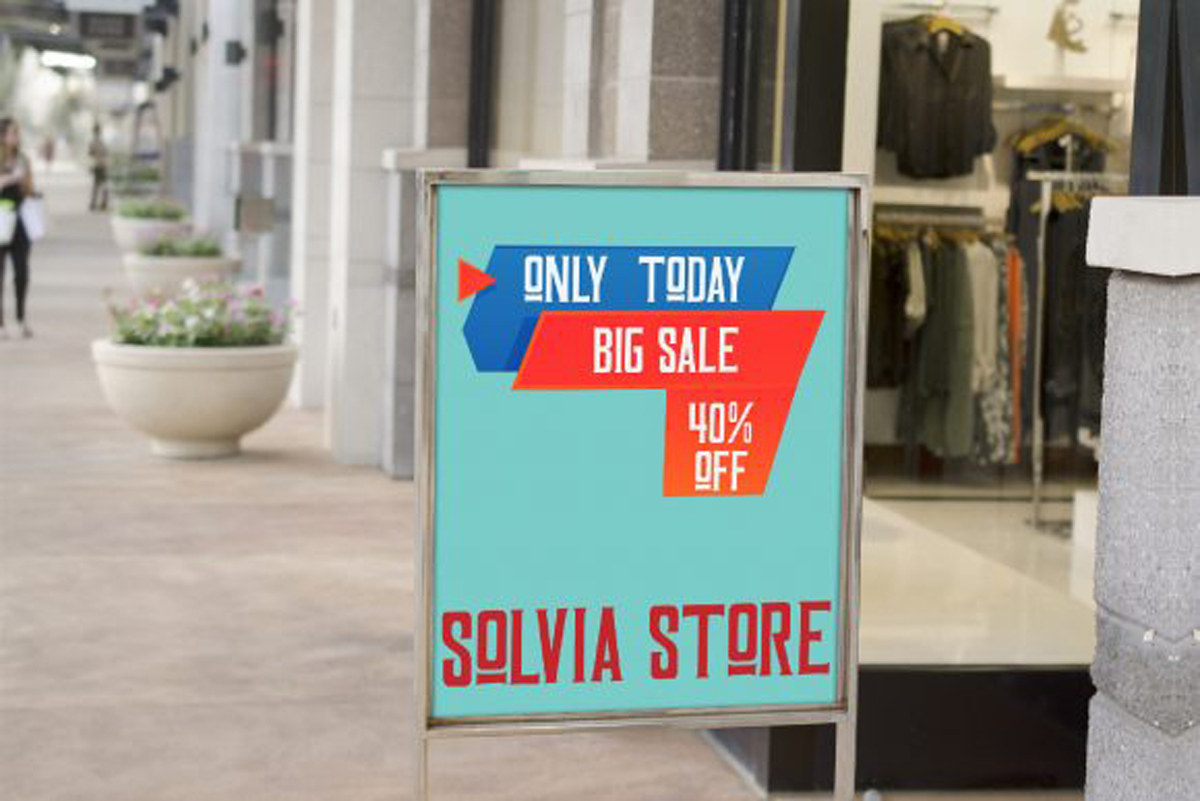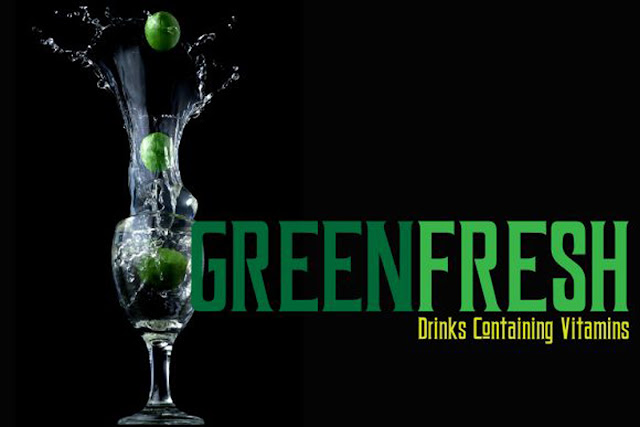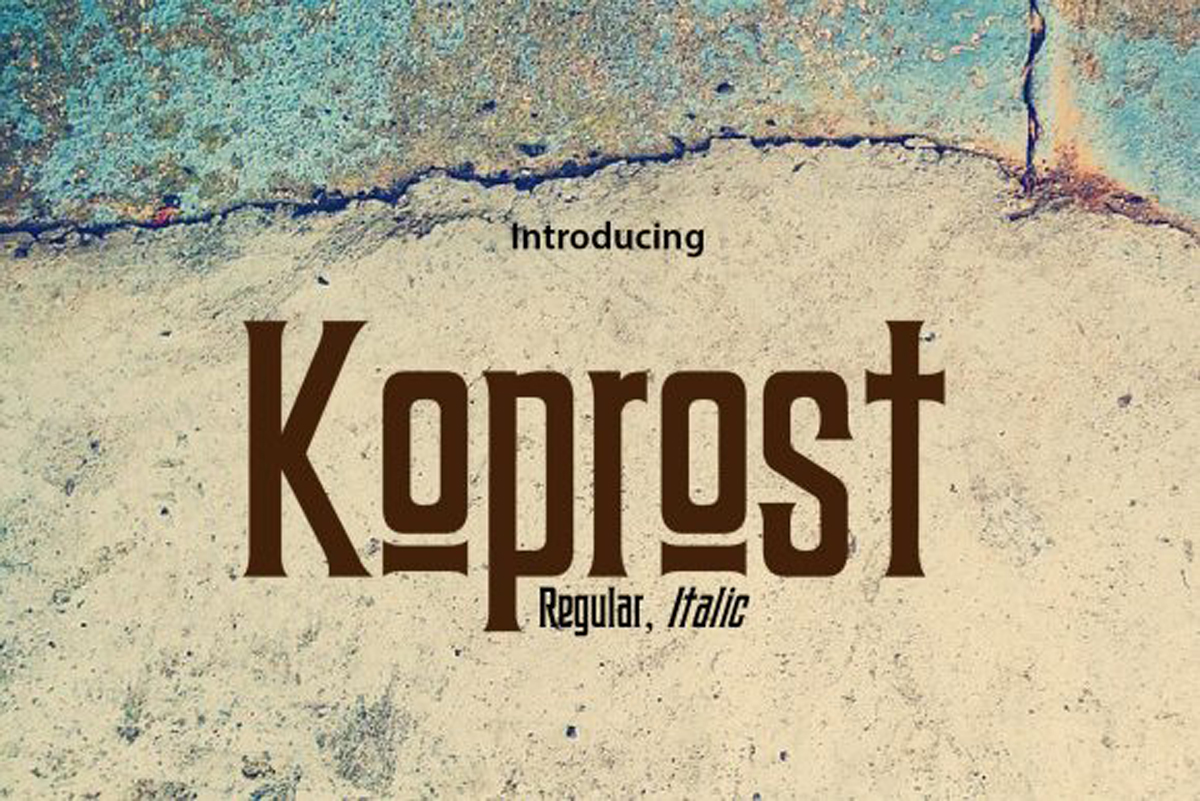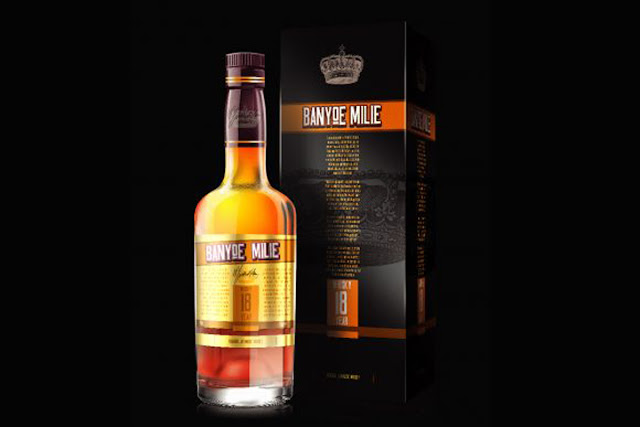
Koprost Font
Free Download Koprost Font with high-speed direct link. Koprost is a minimal yet distinct serif font. It can easily be matched to an incredibly large set of projects, so add it to your creative ideas and notice how it makes them stand out!